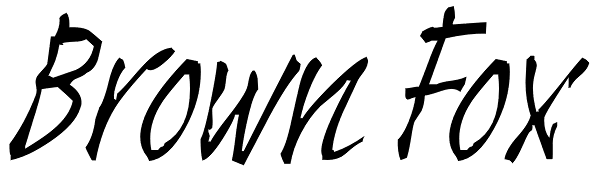
Brown Fox
BrownFox was created because I saw a need for a condensed, loose handwriting - I used my trusty nylon marker to create this font - it is rough, yet thin and elegant. BrownFox has a few surprises like some serious ascenders and descenders with an...